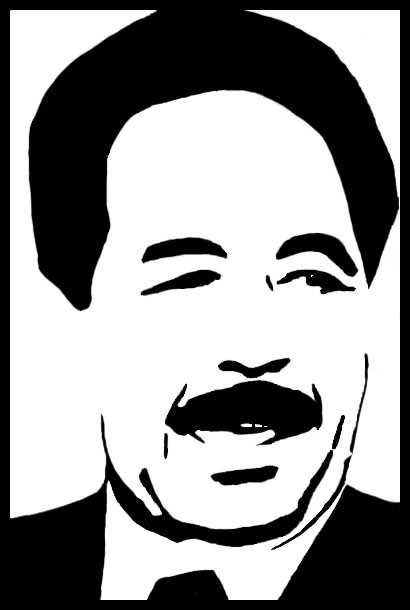
The finished typeface, still in vector format. My first attempt at actually doing something with Freehand. I didn't know which to put this one in, as vector or political but since I'm concentrating on the undertones I figured I'd plonk it here. Look closer, and see what's there and what's not.I'm not anti-American, if you're wondering. I just don't agree with Bush raising all this hoo-ha about Osama being in cahoots with Saddam, then not turning up anything to prove it. Amongst other things. I mean, if you don't like the guy, then just say so!
AWESOME!
But hey... did you happen to get the gun silhouettes from a little game called Counter-Strike?
Haha yeah I did... Pretty easy to tell eh
strong, stylistic, powerful.
i like the weapon and oil imagery juxtaposed with the faces
i still don't get the whole typeface thing (those suppose to be letters or something... ?), but i like the political message thing. i like parts of america; rather, i think it has potenioal, and a lot of great people, and some not so great
No.. They're just a series of 36 icons. Something like your Wingdings font.
ah. few. i tried looking for letters in them.. but.. heh..
heheh pretty neat work! like the idea for a typeface
next time people jux dl ur font to create political posters and such can already. no need draw themselves.
nice idea for typography